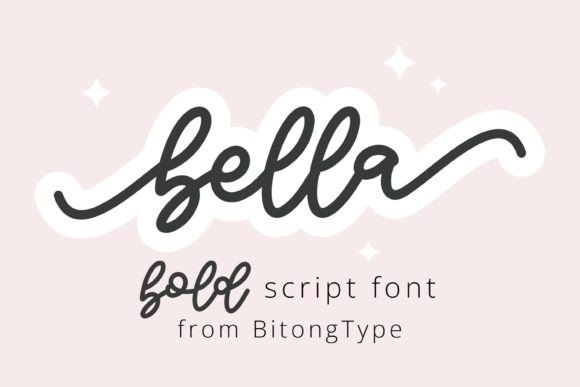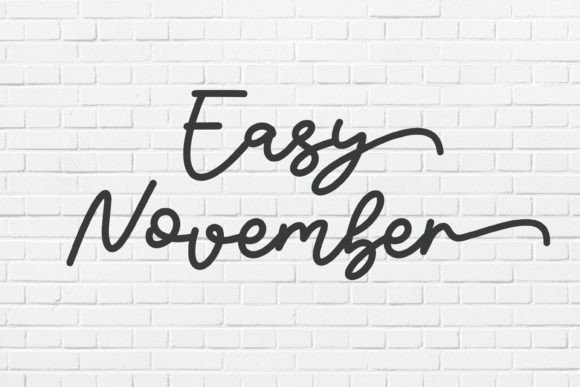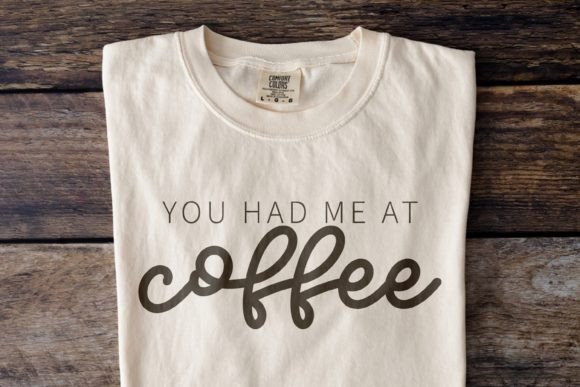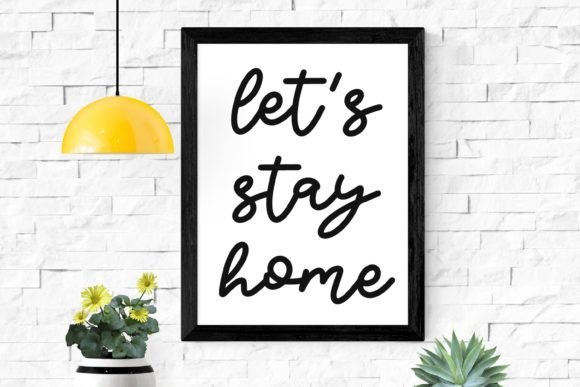
About the Bella Font
Presenting Bella Font, a unique and stylish typeface that will make your work stand out. Bella is a sweet and cute handwritten font. Fall in love with its incredibly versatile style and use it to create gorgeous wedding invitations, beautiful stationary art, eye-catching social media posts, and much more!